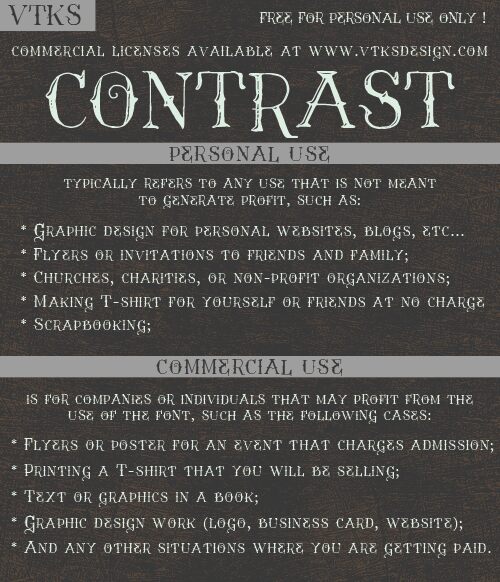
Vtks Contrast by Douglas Vitkauskas is a free old-school decorative display font with the eccentric, weather-beaten air of ornate hand-cut antique lettering. Spindly strokes, flared serifs, and warped proportions keep every letter restless.
A theatrical poster is its clearest assignment: the uneven capitals can suggest an old faded sideshow bill, then carry the same odd period flavor into album packaging, event graphics, and merchandise. The exaggerated shapes can also mingle with woodcut illustrations or distressed borders, but their strongest role is in entertainment publishing, where a title needs to look as peculiar and weathered as the story it introduces.